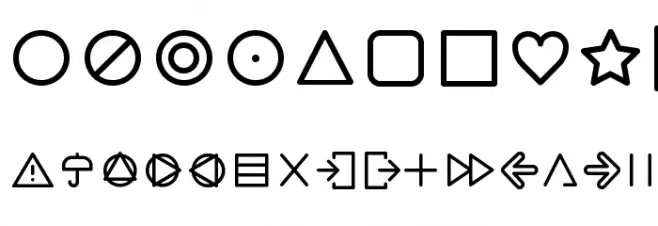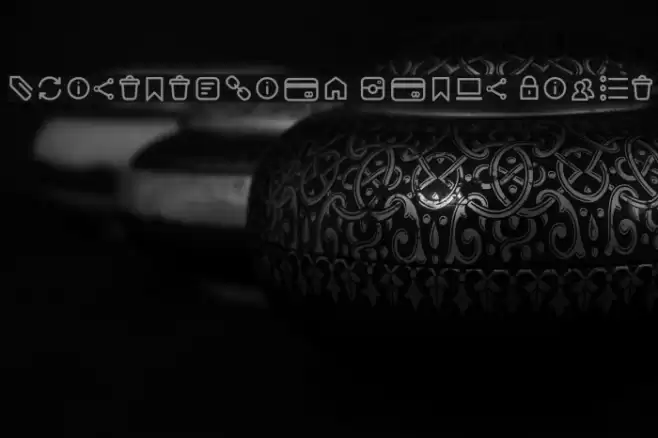
Aristotelica Icons Light Font
Aristotelica Icons Light Description
This collection features a series of minimalist icons characterized by clean lines and a consistent stroke weight. The icons are designed with a modern aesthetic, focusing on simplicity and clarity. Each icon is easily recognizable, making them suitable for a variety of digital interfaces. The set includes a diverse range of symbols, from basic geometric shapes to more complex representations like cameras, locks, and social media icons. The uniform line thickness and balanced proportions contribute to a cohesive look, ensuring that the icons work well together in any layout.
- Proposed Projects: Ideal for app interfaces, web design, and digital presentations where clarity and modern aesthetics are key.